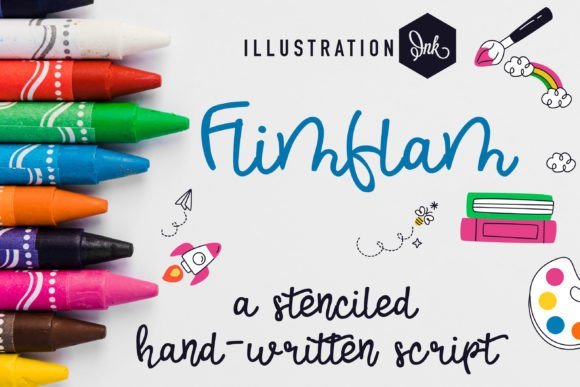
Have you ever stared at a blank page, trying to come up with the perfect idea for a logo or invitation? The blank page stares back, taunting you with its emptiness. But then, something magical happens. You grab a pen, and the words start flowing. The lines dance across the page, and suddenly, your idea is taking shape.
Enter Flimflam Font, the hand-written script that brings a touch of whimsy and elegance to any project. With its bouncy baseline and playful feel, Flimflam Font is perfect for designers who want to add a personal touch to their work. Whether you’re creating logos, branding, invitations, or social media posts, Flimflam Font is a valuable addition to your design arsenal.
Flimflam Font Key Features
- Font Family: Flimflam Font is a unique, hand-drawn font family designed for creative and artistic purposes.
- Unique Characteristics: Features a whimsical, cursive script with intricate details and flourishes, perfect for adding a touch of elegance and sophistication to designs.
- Characters and Glyphs: Includes a wide range of characters, including Latin, Cyrillic, and Greek alphabets, as well as punctuation marks and symbols.
Flimflam Font Review
As a designer, I was initially drawn to the whimsical and playful vibe of the Flimflam Font. ✨ The unique blend of curvaceous lines and quirky letterforms makes it perfect for adding a touch of personality to brand identities, packaging designs, and digital interfaces. I particularly appreciate how the font’s subtle imperfections and irregularities give it a hand-drawn feel that’s hard to replicate with more conventional fonts.
However, there are a few limitations to consider. ⚠️ For one, the font’s irregularities can sometimes make it difficult to read, especially at smaller font sizes. This can be a concern for designs that require clear and concise typography. Additionally, the font’s limited character set and lack of language support may be a hindrance for designers working on projects that require multiple languages.
Overall, I think the Flimflam Font is a great choice for designers looking to add a touch of whimsy and personality to their work. While it may not be suitable for every project, its unique charm and character make it a valuable addition to any designer’s toolkit.
- Pros:
- Unique and playful personality
- Perfect for adding a touch of whimsy to designs
- Hand-drawn feel that’s hard to replicate
- Cons:
- Difficult to read at smaller font sizes
- Limited character set and language support
Flimflam Font: A Practical Application Guide
For best results, use Flimflam Font for headings and titles, and pair it with a clean sans-serif font for body text.
Use Flimflam Font to add a touch of elegance to your graphics and illustrations.
Use Flimflam Font to add a professional touch to your presentations and documents.
Flimflam Font is perfect for:
1. Designing elegant graphics and illustrations.
2. Creating professional presentations and documents.
3. Adding a touch of sophistication to headings and titles.
4. Pairing with clean sans-serif fonts for body text.
Alternatives to “Flimflam Font”
“Whimsy Script”
Whimsy Script is a playful, handwritten font perfect for adding a touch of elegance and sophistication to your designs. It’s ideal for invitations, wedding stationery, and other high-end promotional materials. Compared to Flimflam Font, Whimsy Script has a more refined and polished look, making it suitable for a wider range of applications.
“Pirate’s Script”
Pirate’s Script is a bold, adventurous font that’s perfect for creating a sense of excitement and energy in your designs. It’s ideal for outdoor and action-themed projects, such as adventure travel websites, sports branding, and pirate-themed merchandise. Compared to Flimflam Font, Pirate’s Script has a more rugged and playful feel, making it suitable for projects that require a sense of adventure and spontaneity.
What is the recommended font size for optimal readability with the Flimflam Font?
The recommended font size for optimal readability with the Flimflam Font is between 12pt and 14pt. However, font size may vary depending on the specific design requirements and the intended audience. We recommend testing different font sizes to determine the most effective size for your project.